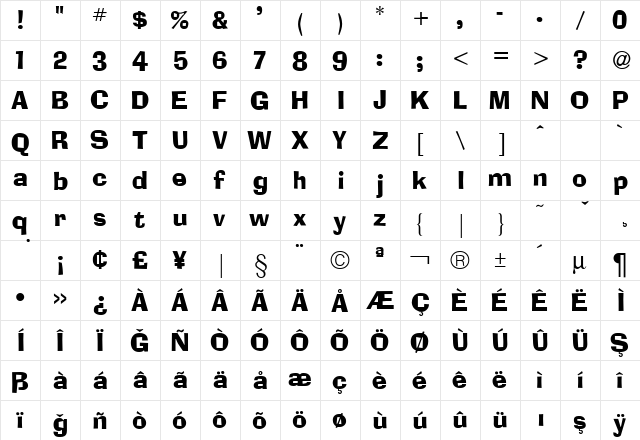
Adelaide_TR Regular
Design Context for Adelaide_TR Typeface
Adelaide_TR takes a measured approach to typography — its balanced proportions and neutral character make it a reliable workhorse for both digital and print work.